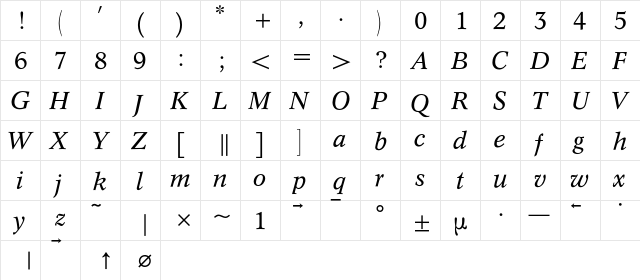
Concorde Math 2 BQ Regular
Design Context for Concorde Math 2 BQ Typeface
Concorde Math 2 BQ offers clean, dependable letterforms without strong stylistic allegiance, making it a practical choice for designers who need flexibility.